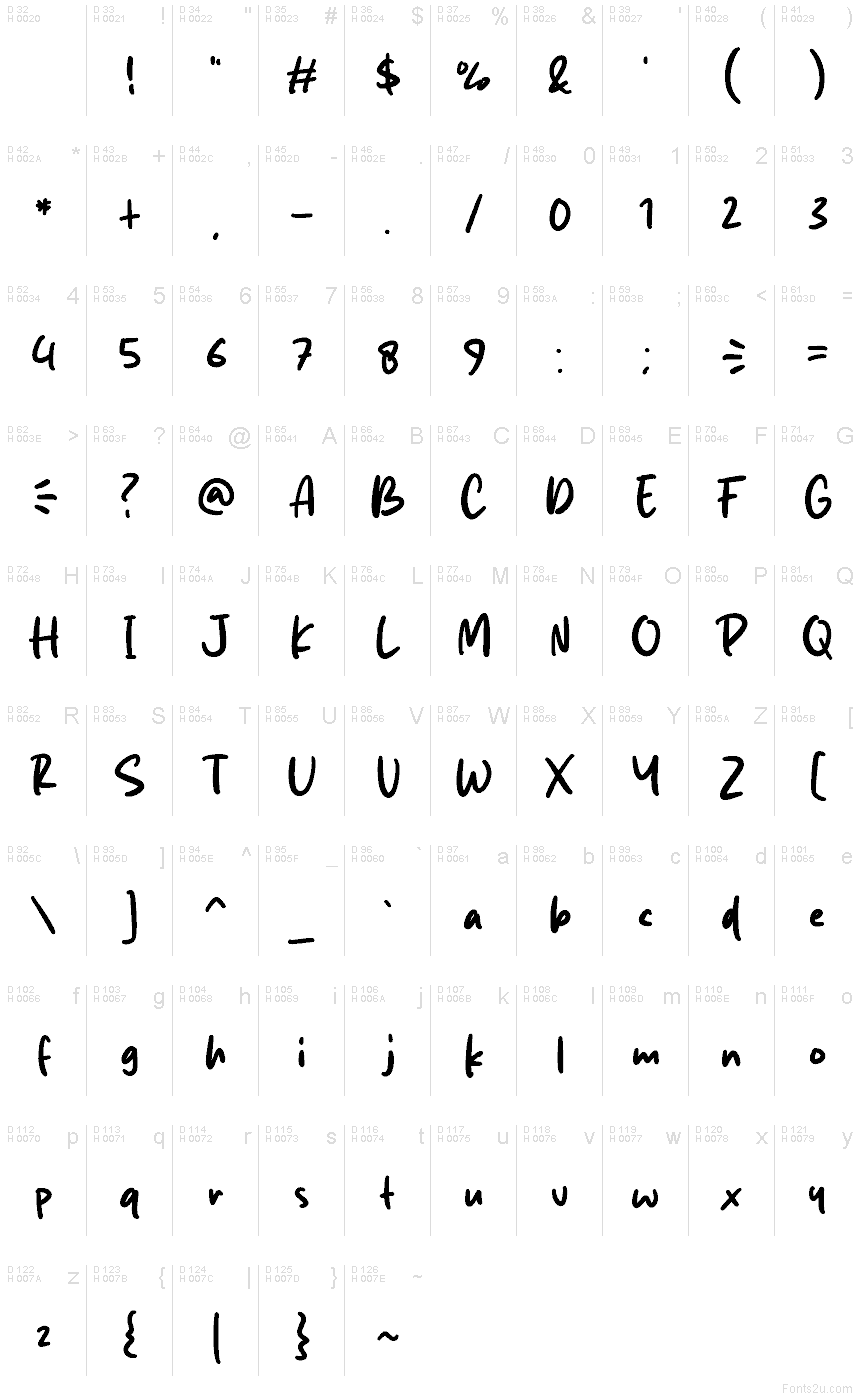
Beauty Cherry
\nBeauty Cherry font designed by Origin Type is a handwritten font characterized by a casual elegance. The overall handwriting appearance of the characters has a smooth flow and expressive style. Each stroke tries to mimic pen writing so that the viewer enjoys an authentic typography experience.